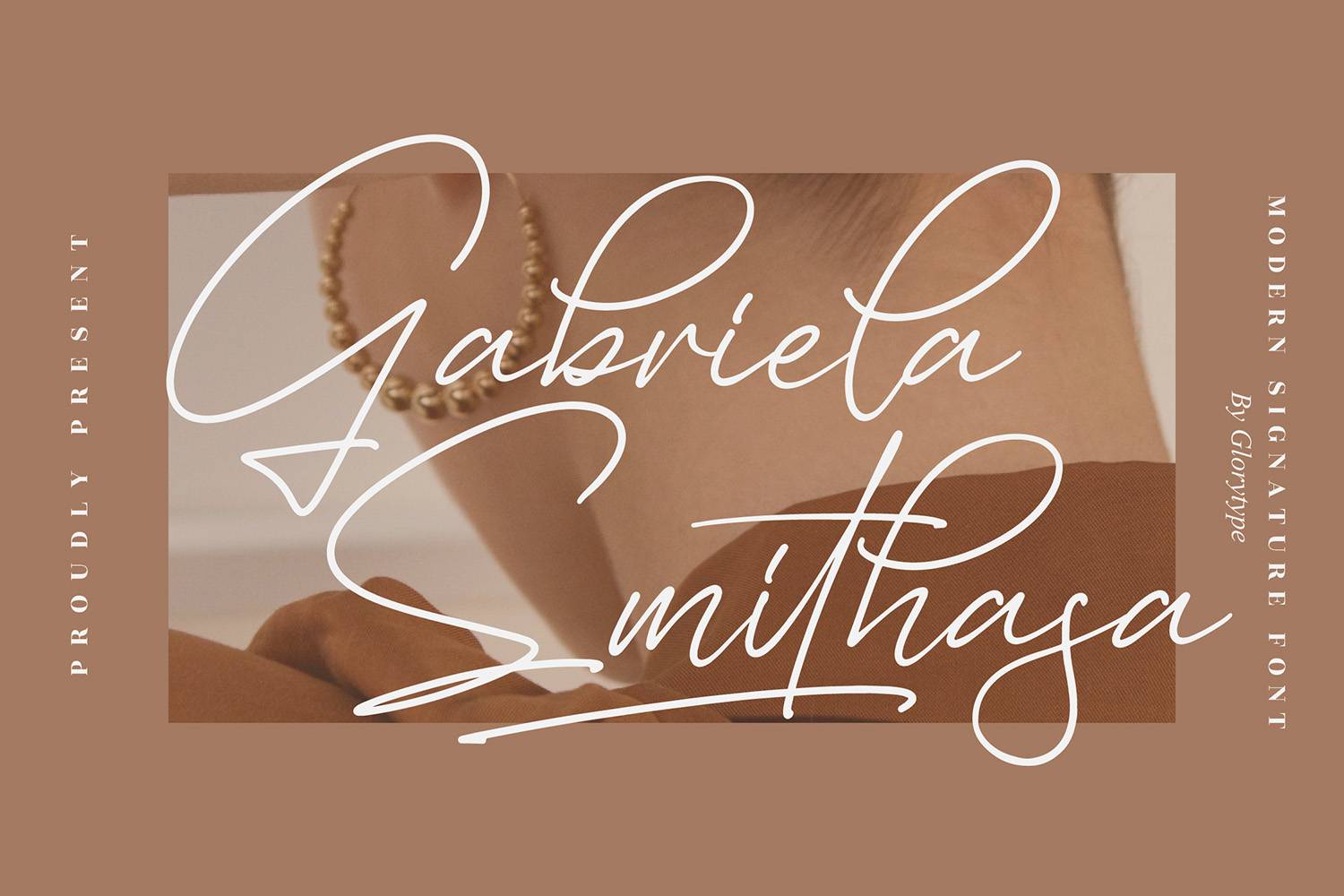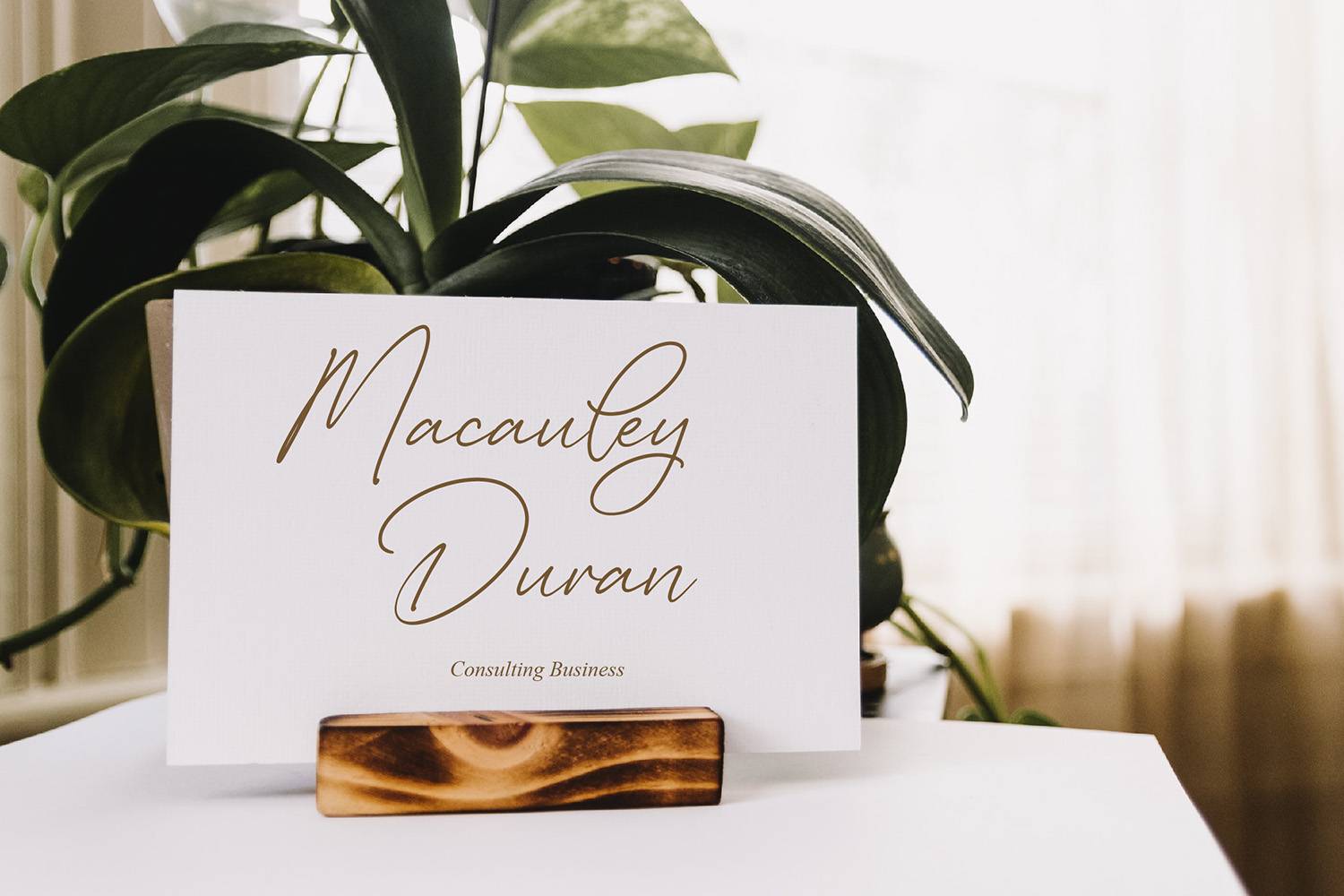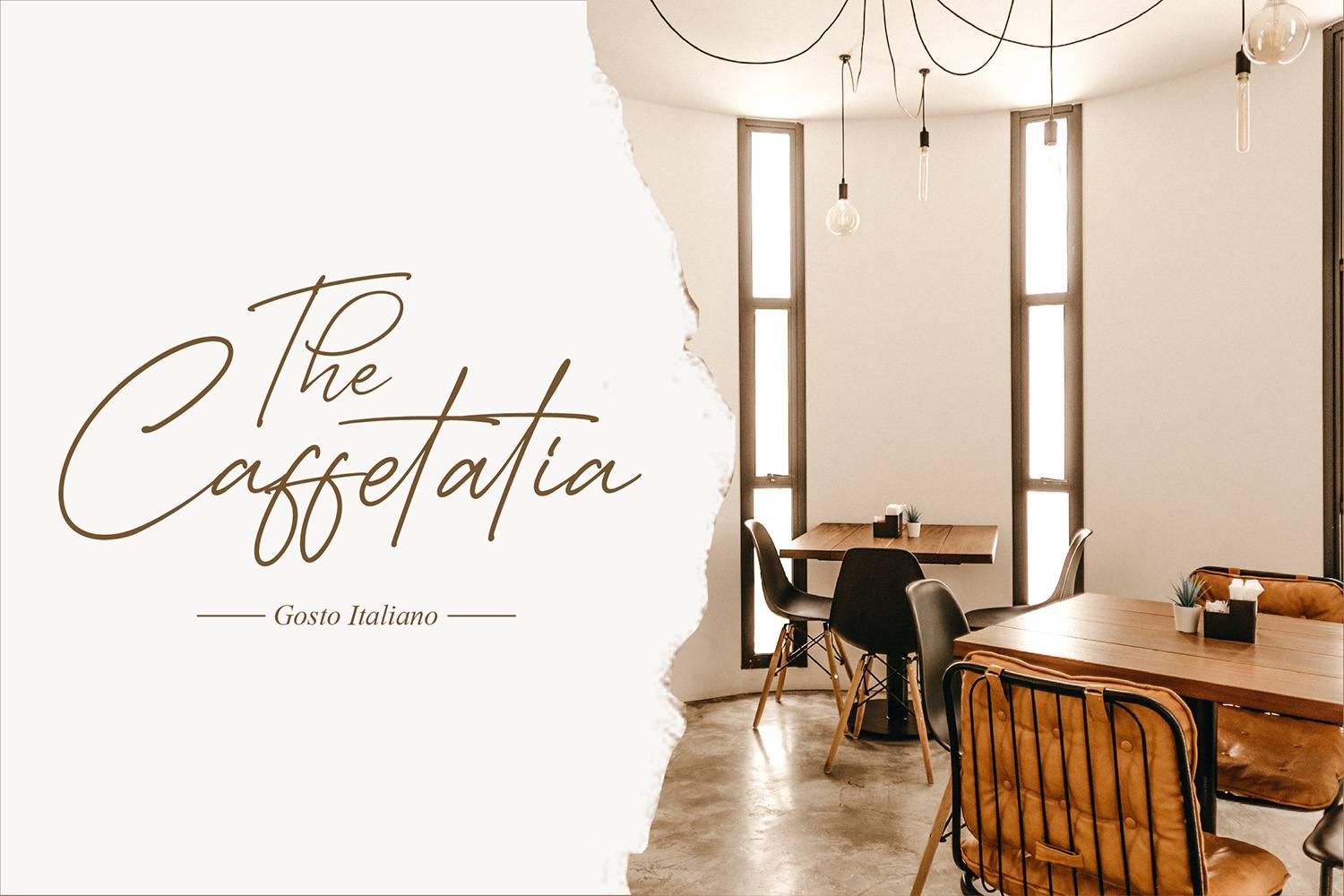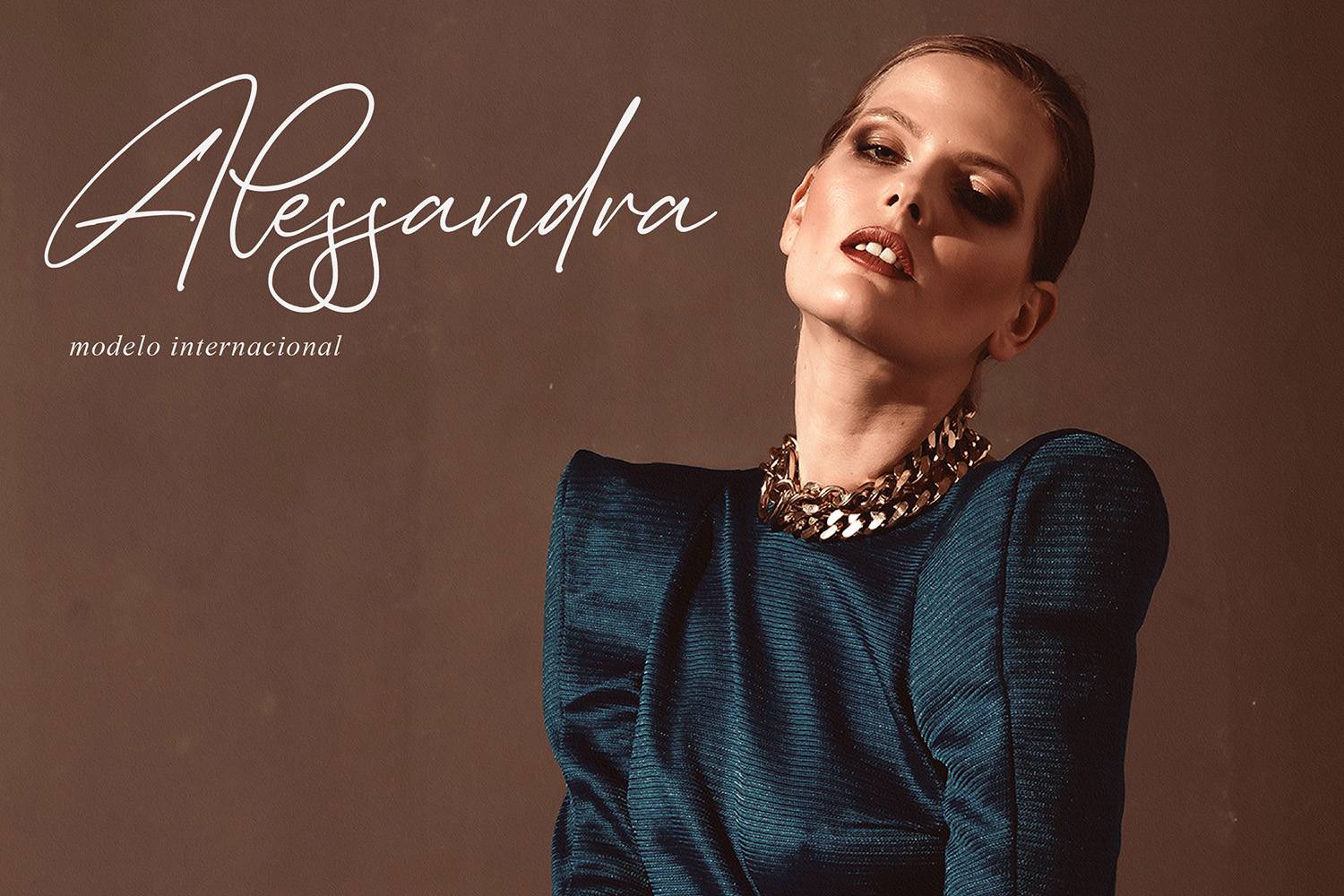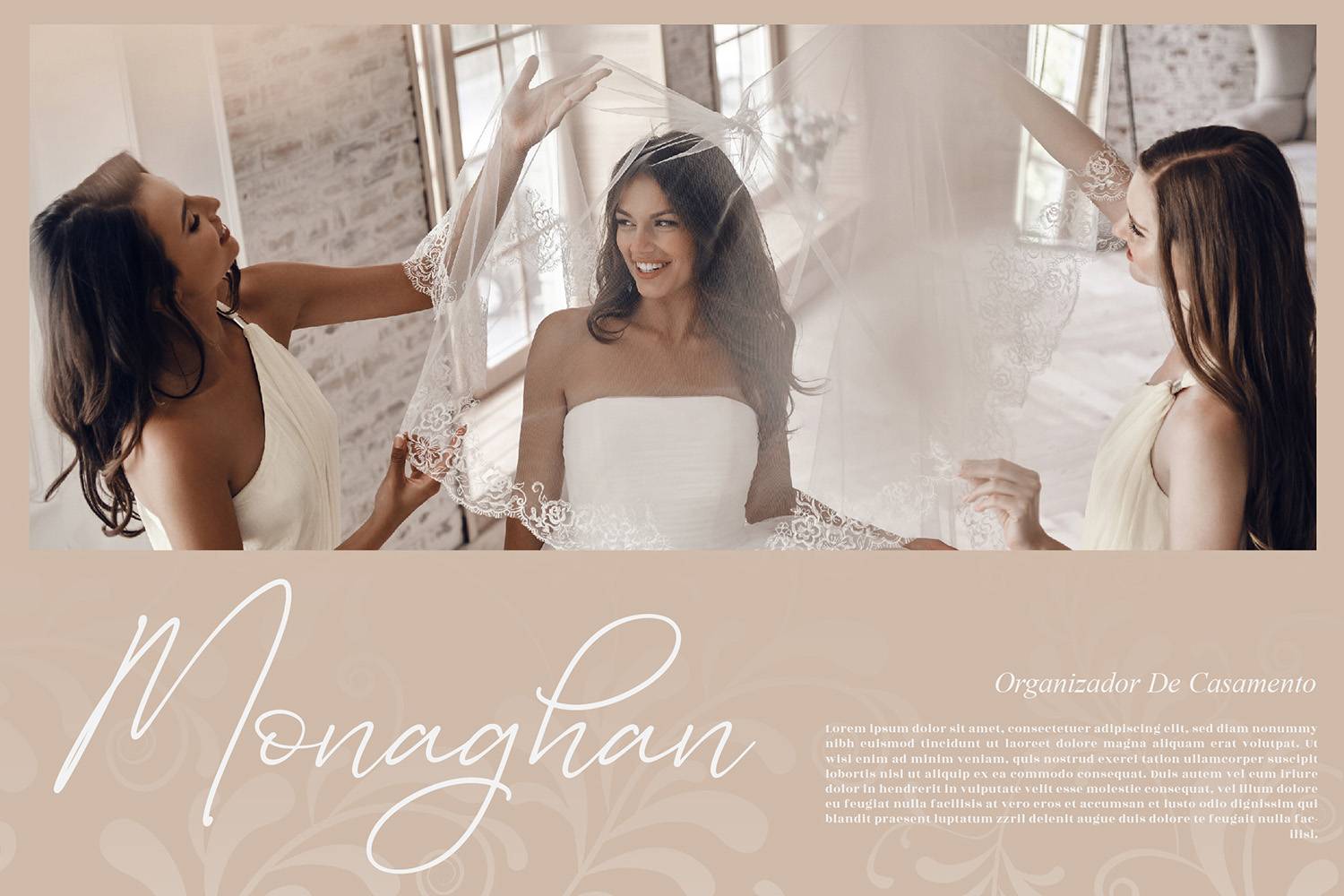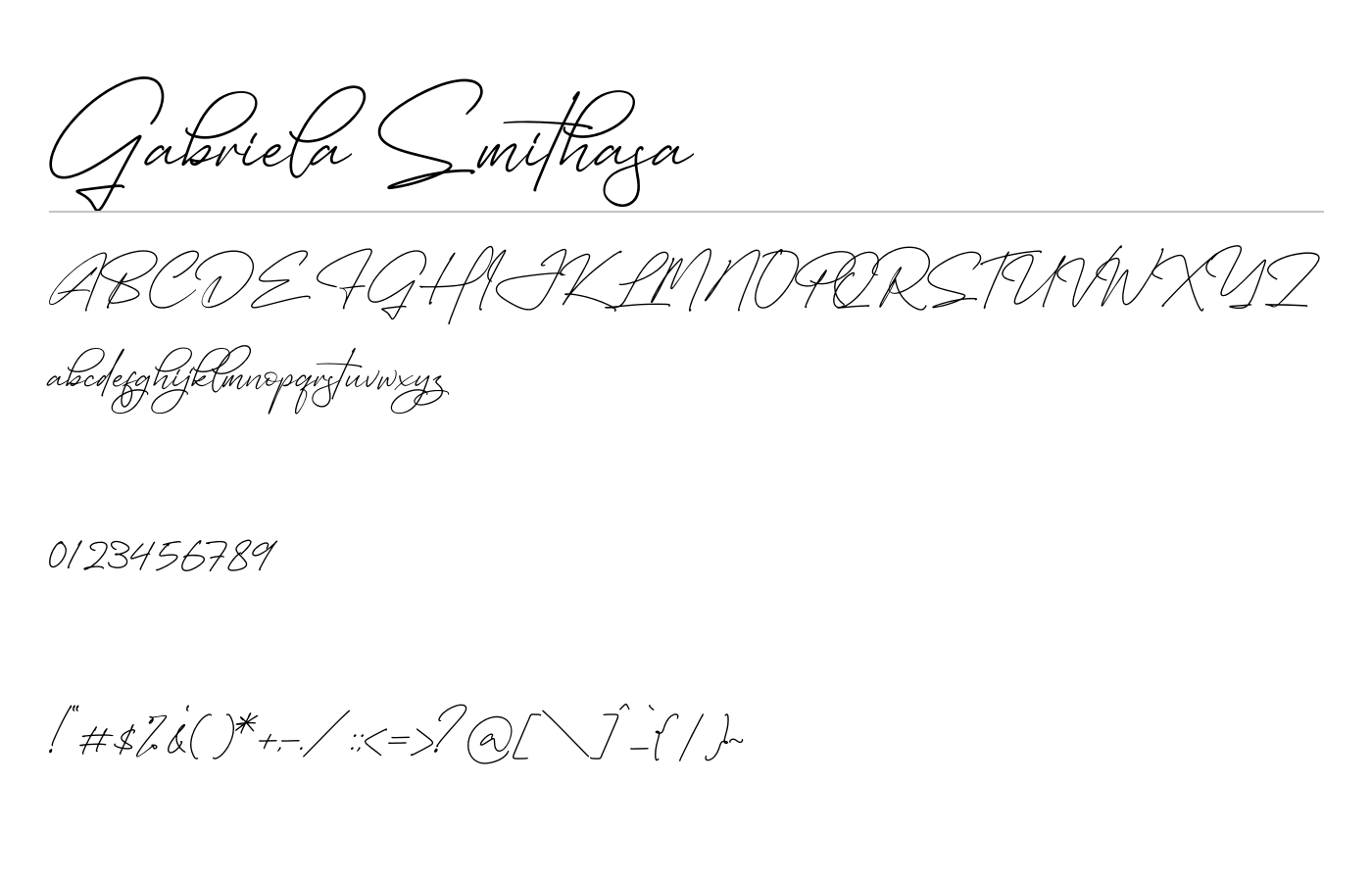
Gabriela Smithasa is an elegant handwritten script font characterized by its thin, delicate strokes and fluid, natural flow. With a refined, airy feel and distinctive letterforms that mimic authentic cursive writing, it works beautifully in luxury branding, wedding invitations, and sophisticated editorial designs where a personal, graceful touch is desired. Its stylish yet readable style makes it perfect for adding charm and elegance to headlines and logos.
Gabriela Smithasa Font
About Gabriela Smithasa Font